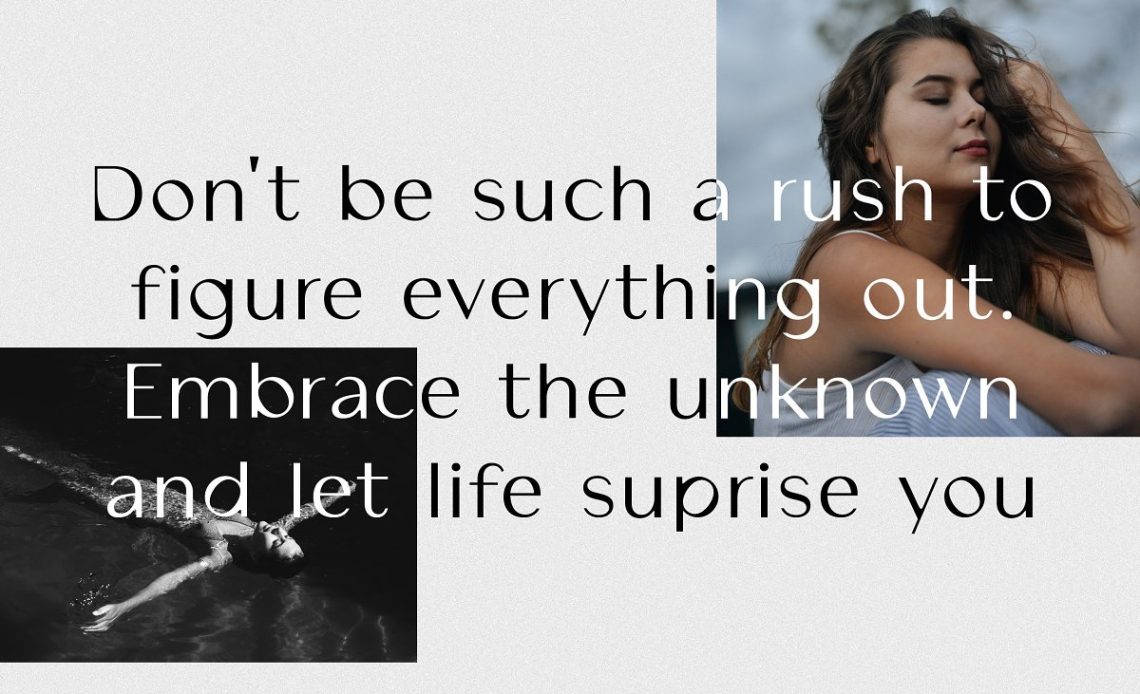
Are you looking for the perfect font for your wedding book or invitation? Look no further than BERO Modern Unique Typeface, created by Lucia Mercedes. BERO is an elegant sans serif font that provides a timeless look for any design.
Clean and modern, BERO is perfect for branding, magazine design, logo design, headlines, posters, packaging, cards, or any other design project that requires a clean and modern aesthetic. The font family includes Regular, Bold & Extreme weights, providing you with a range of options to choose from.
But BERO doesn't just look good - it's also highly functional. With multilingual support, numerals, and punctuation, BERO can be used for a wide range of design projects in any language. And with (.otf/.ttf/.woff/.woff2) file formats available, you can easily integrate BERO into your design workflow.
Don't settle for an ordinary font - elevate your designs with BERO Modern Unique Typeface. Try it today and see the difference it can make!